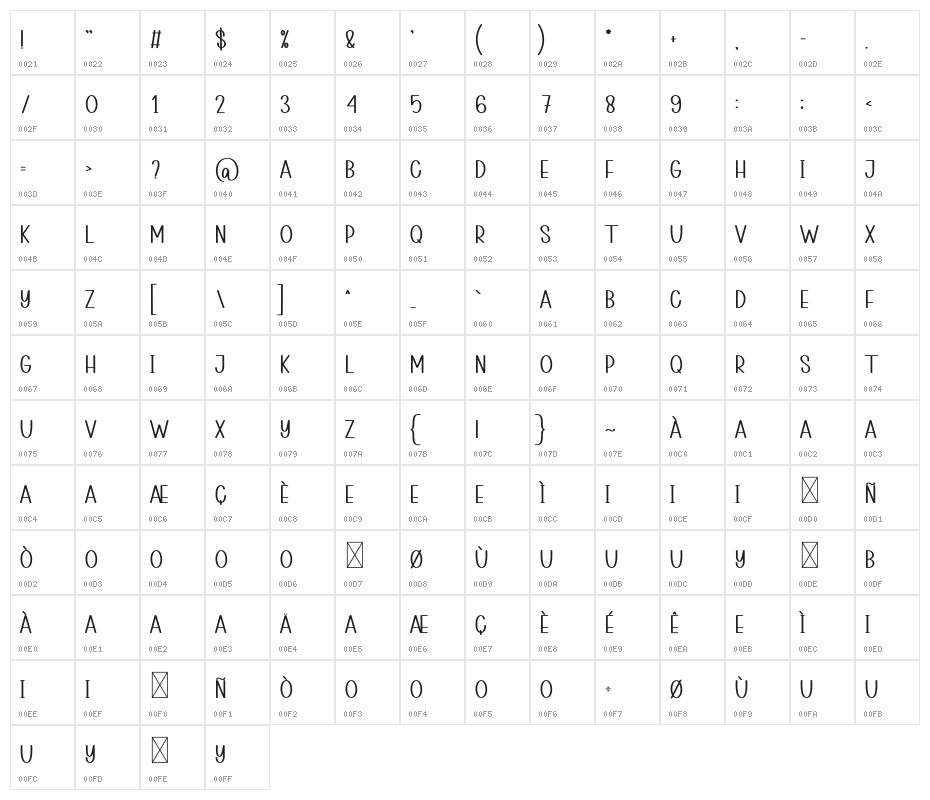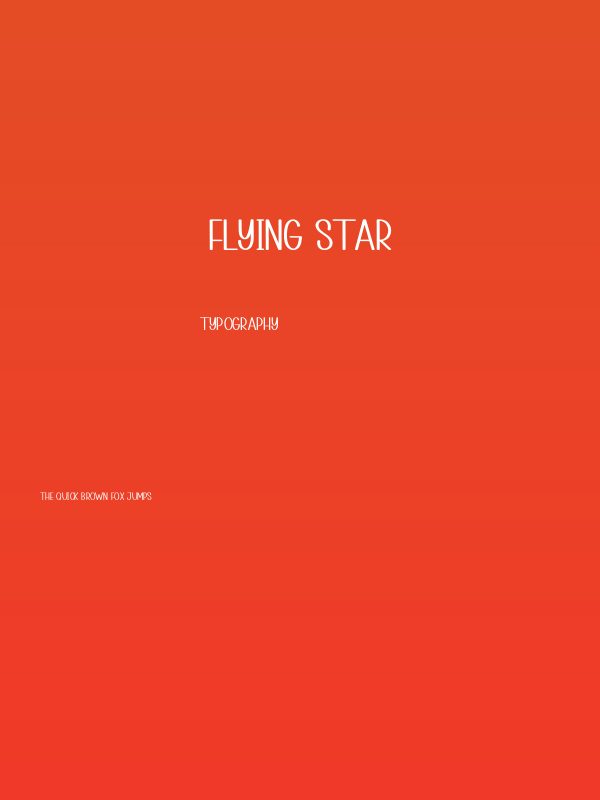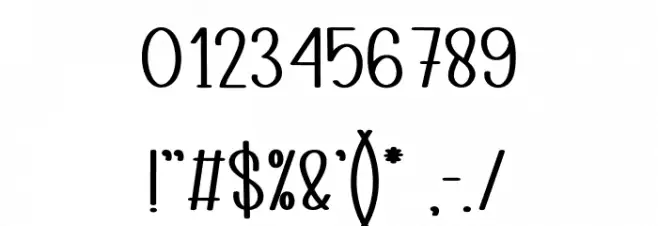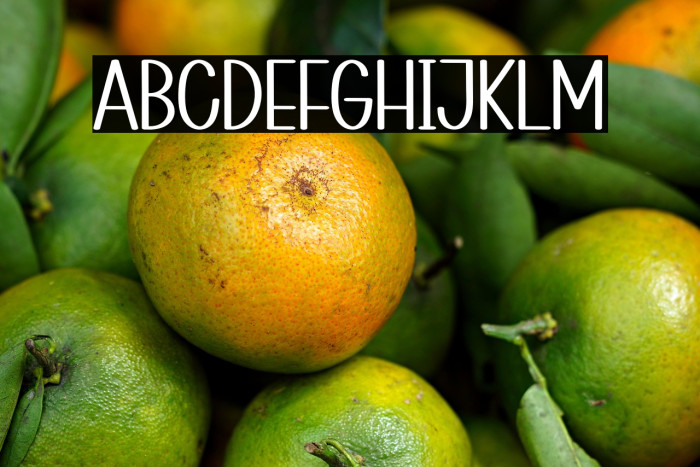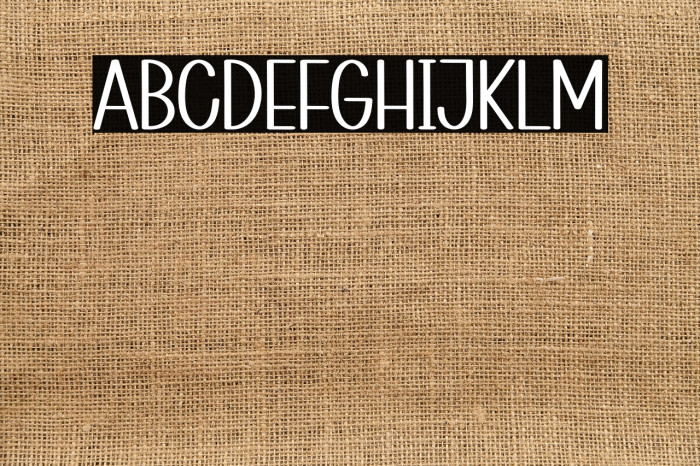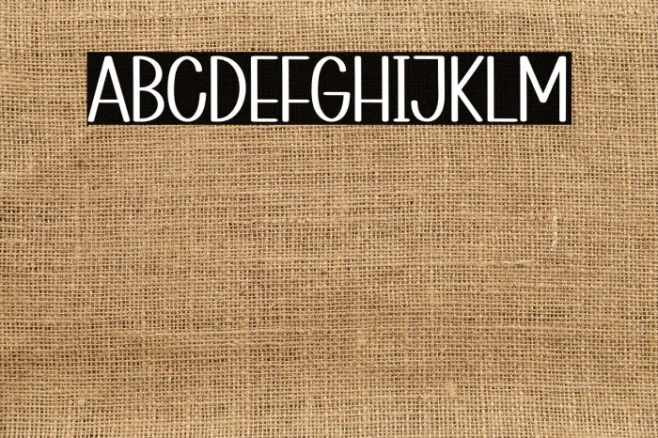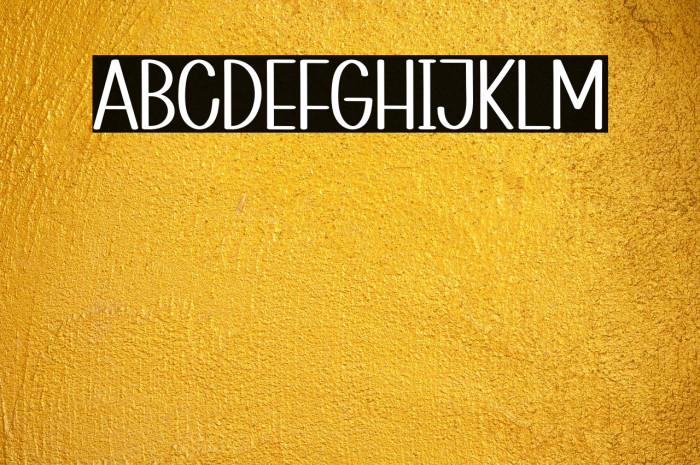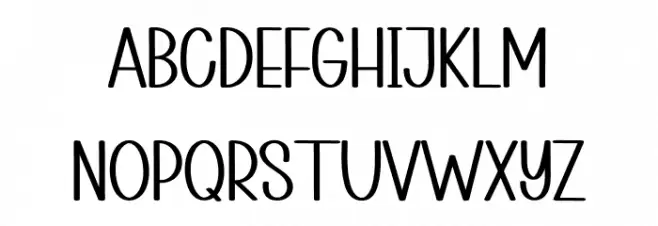
Flying Star Font
Flying Star Description
This font features a playful and modern design with a handwritten feel. The characters are slightly rounded, giving them a friendly and approachable appearance. The strokes are consistent in thickness, providing a clean and uniform look. The font maintains a good balance between readability and style, making it suitable for various creative projects. The numerals and special characters are designed to match the overall aesthetic, ensuring cohesion across all text elements.
| Use Case | Headlines, Logos, Social media graphics |
| Proposed Projects | Ideal for greeting cards, children's books, playful branding, and social media graphics. |